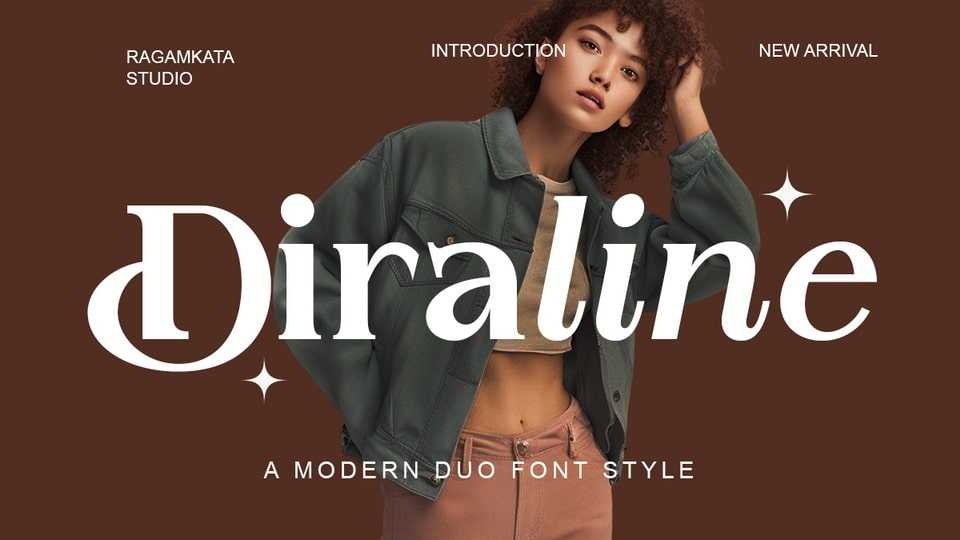
Diraline Font › Fontesk – Fonte Grátis
Download Diraline font, a modern serif typeface with elegance refined sophistication designed with sharp serifs and balanced proportions.